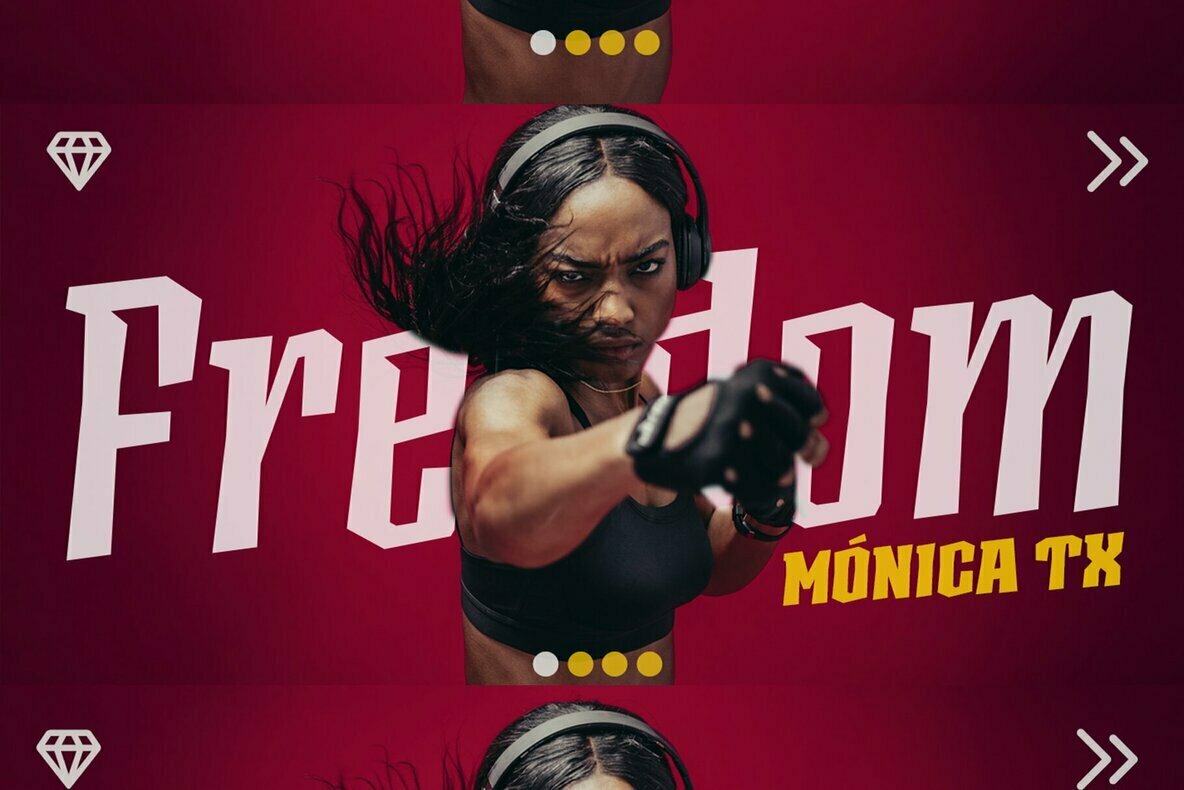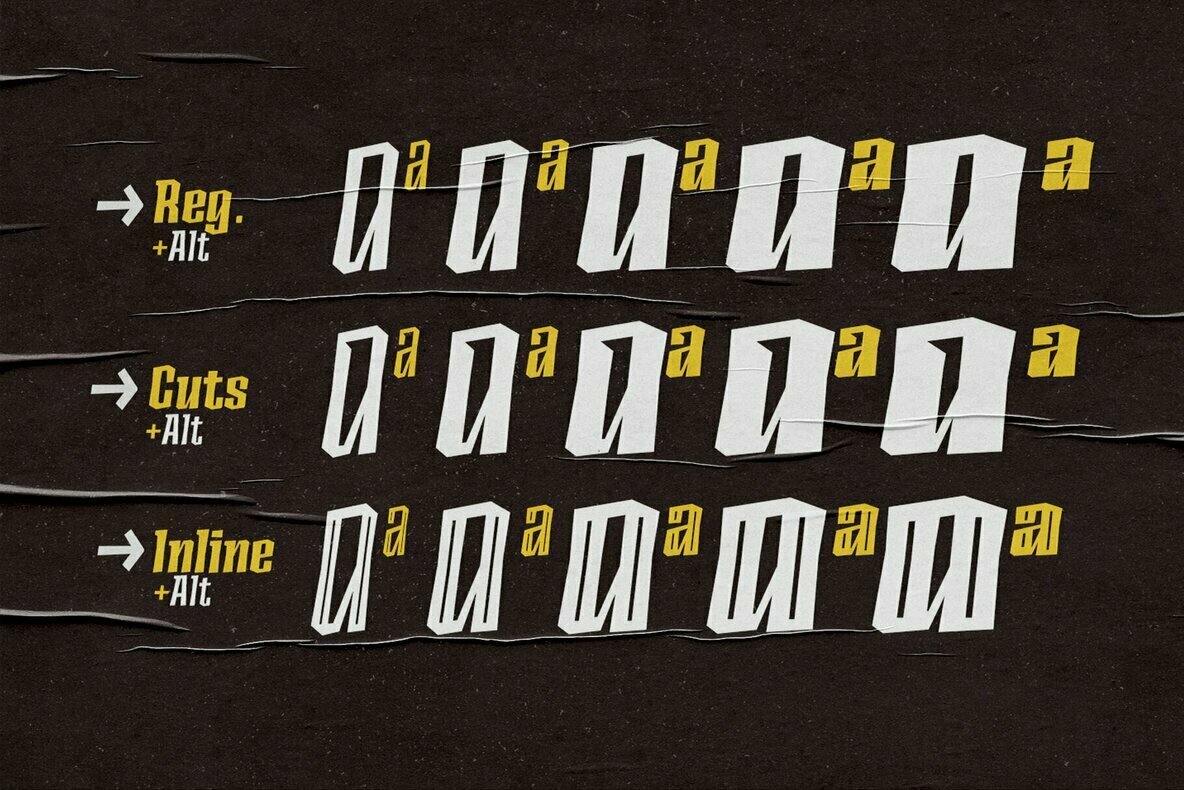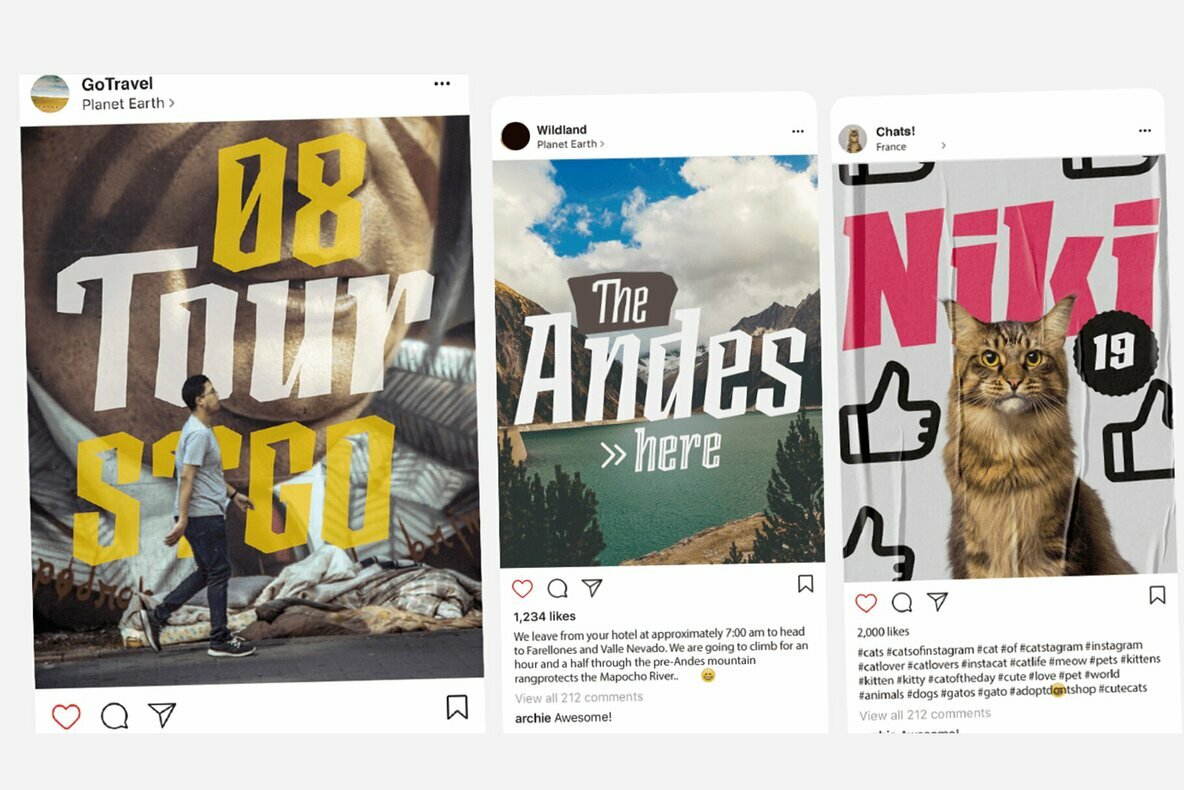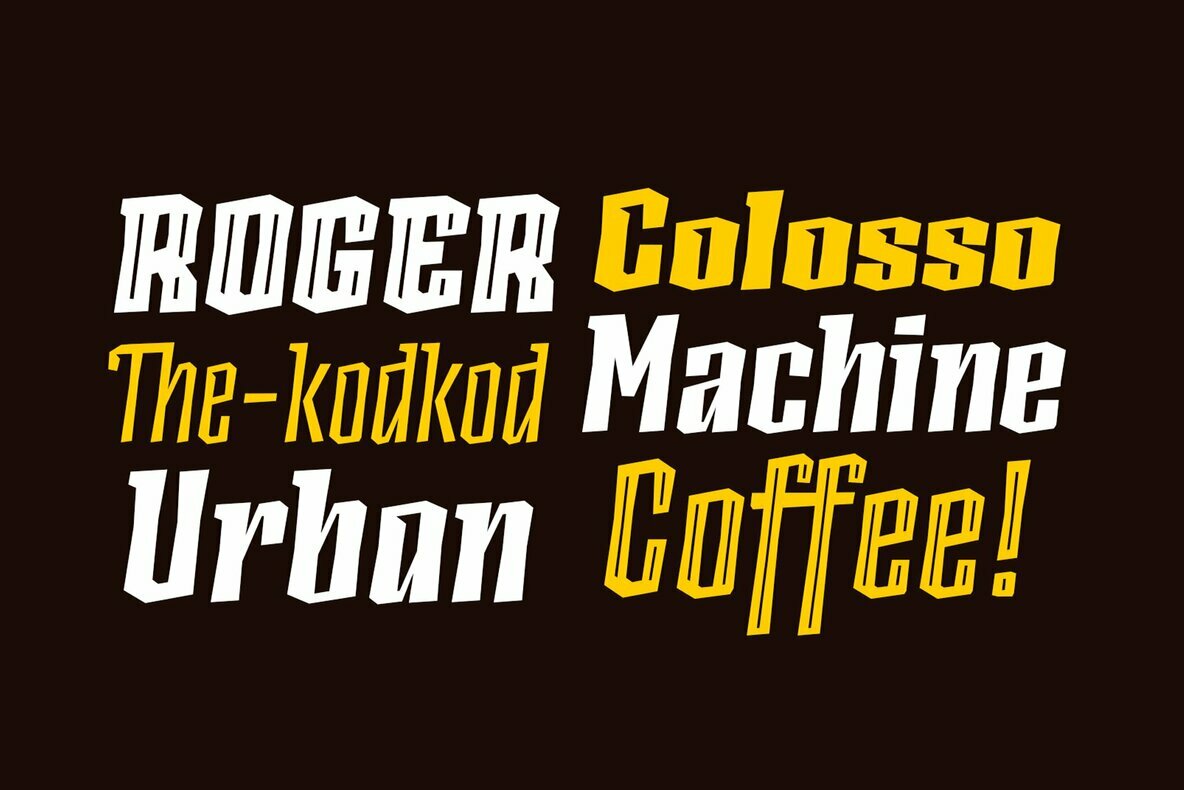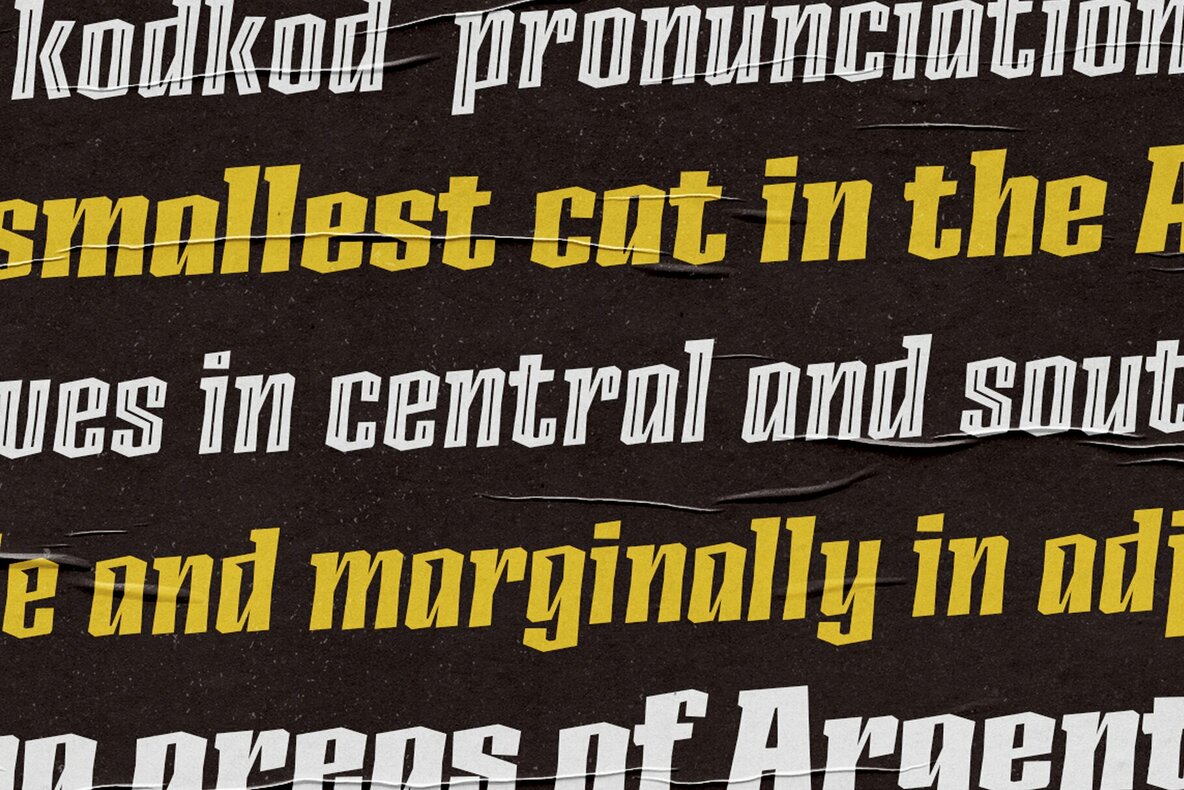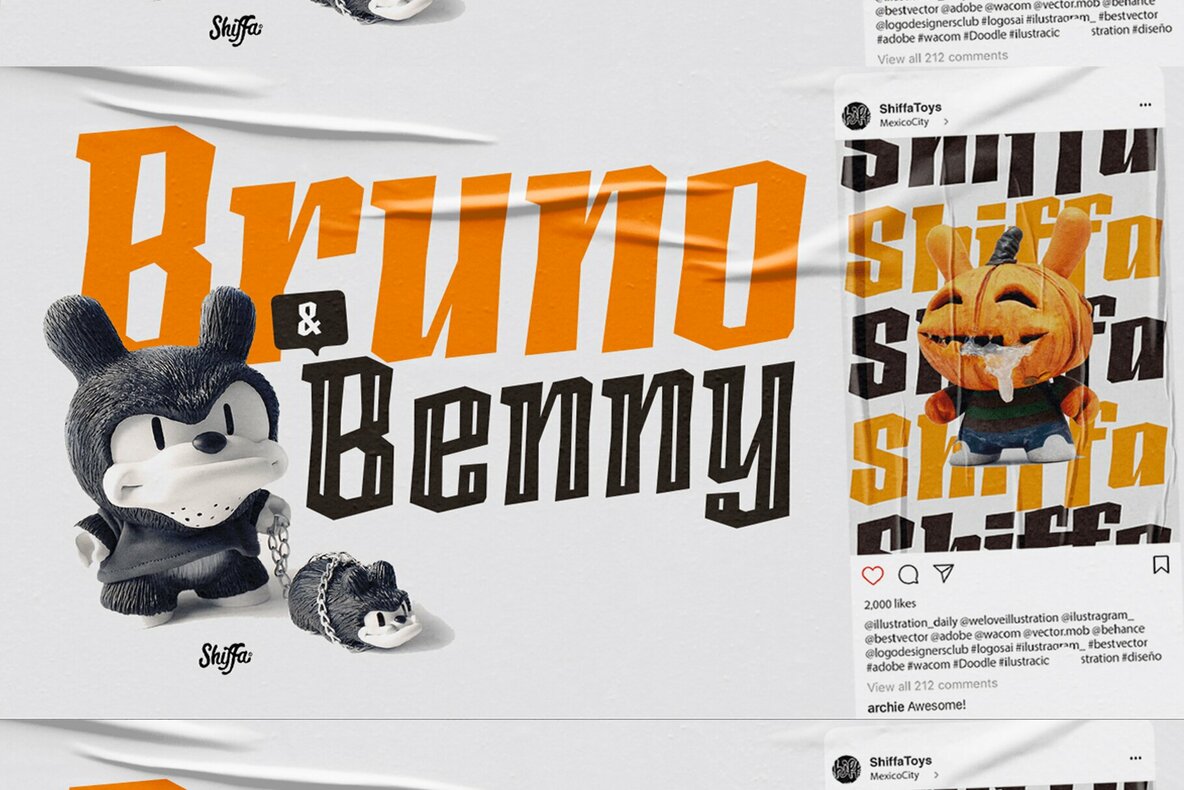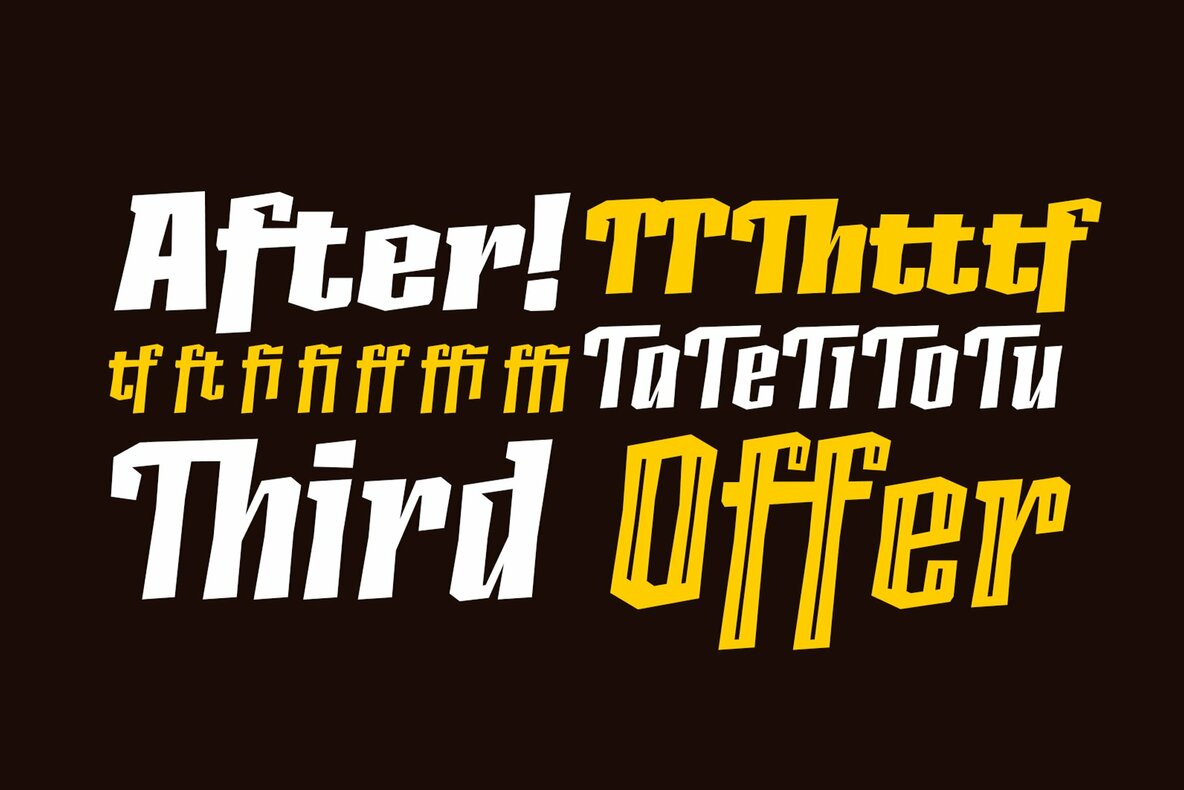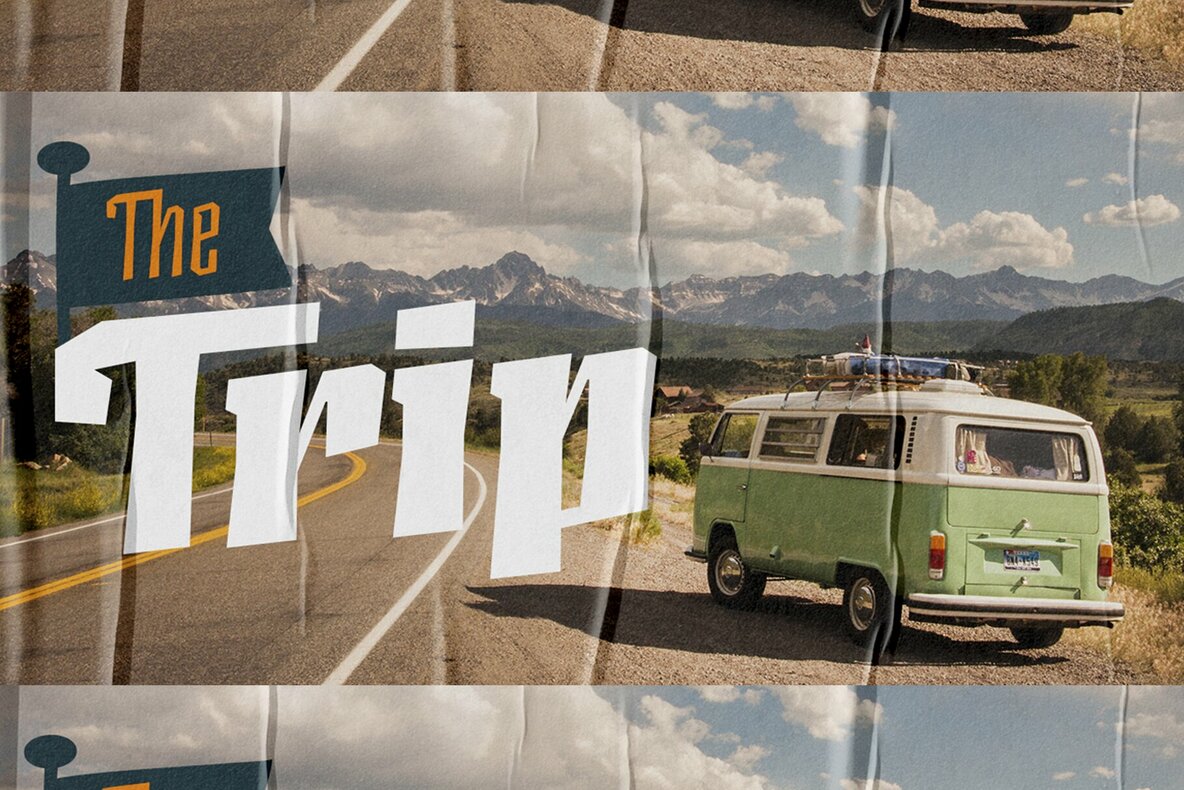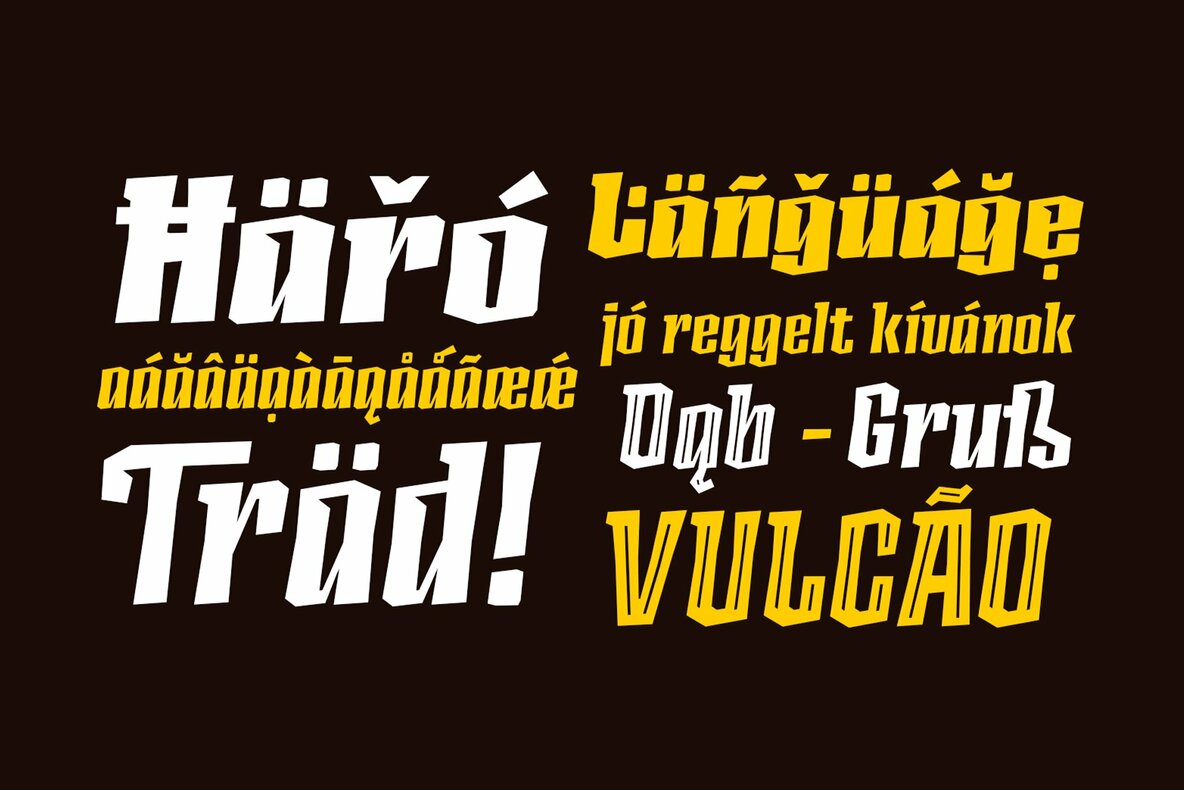
Ancoa Slanted Font
Ancoa Slanted, a typeface that contains more than 15 variants such as Slanted, Cuts and Inline as well as different ligatures and contains alternatives, a rough and dynamic typeface to use in different designs